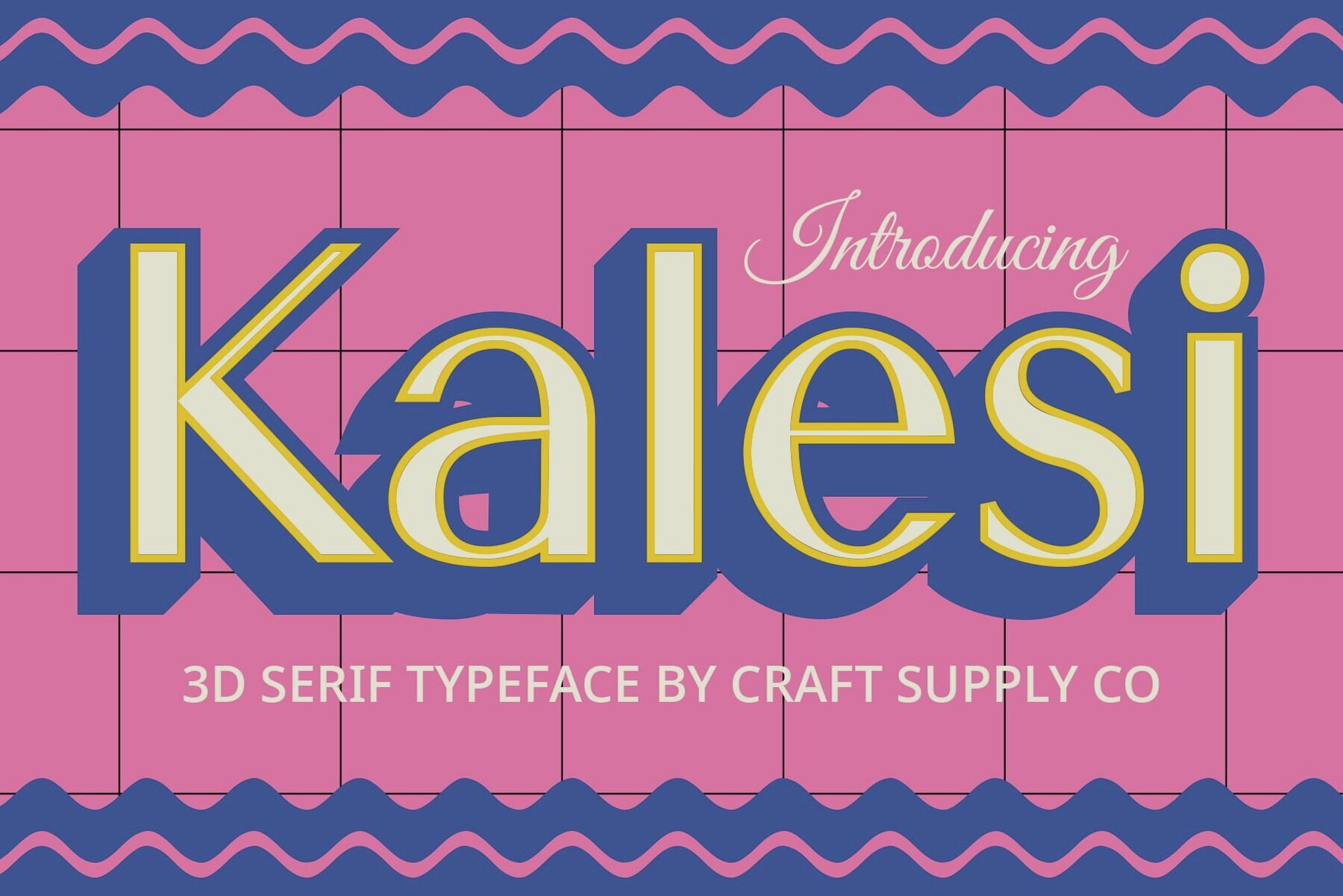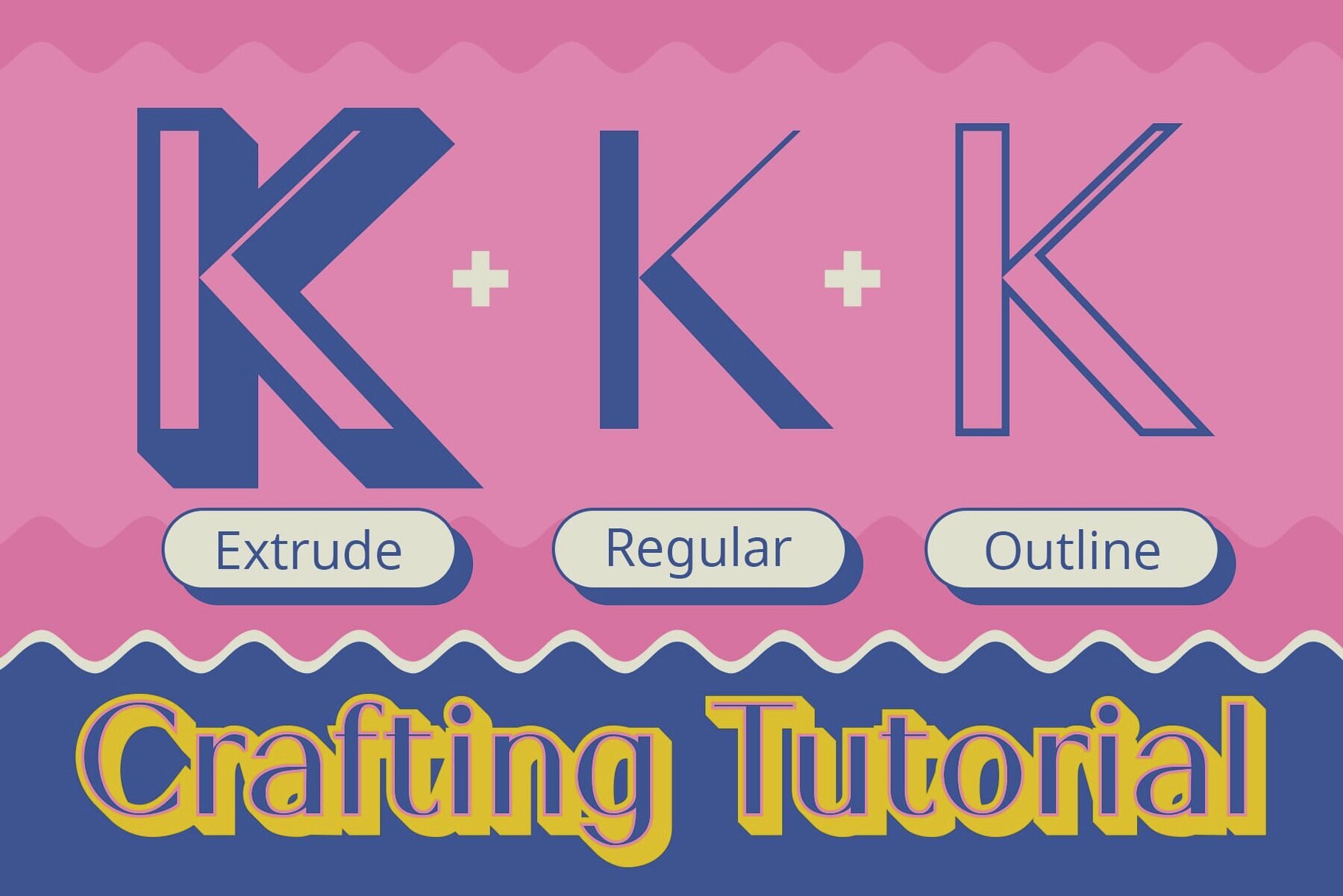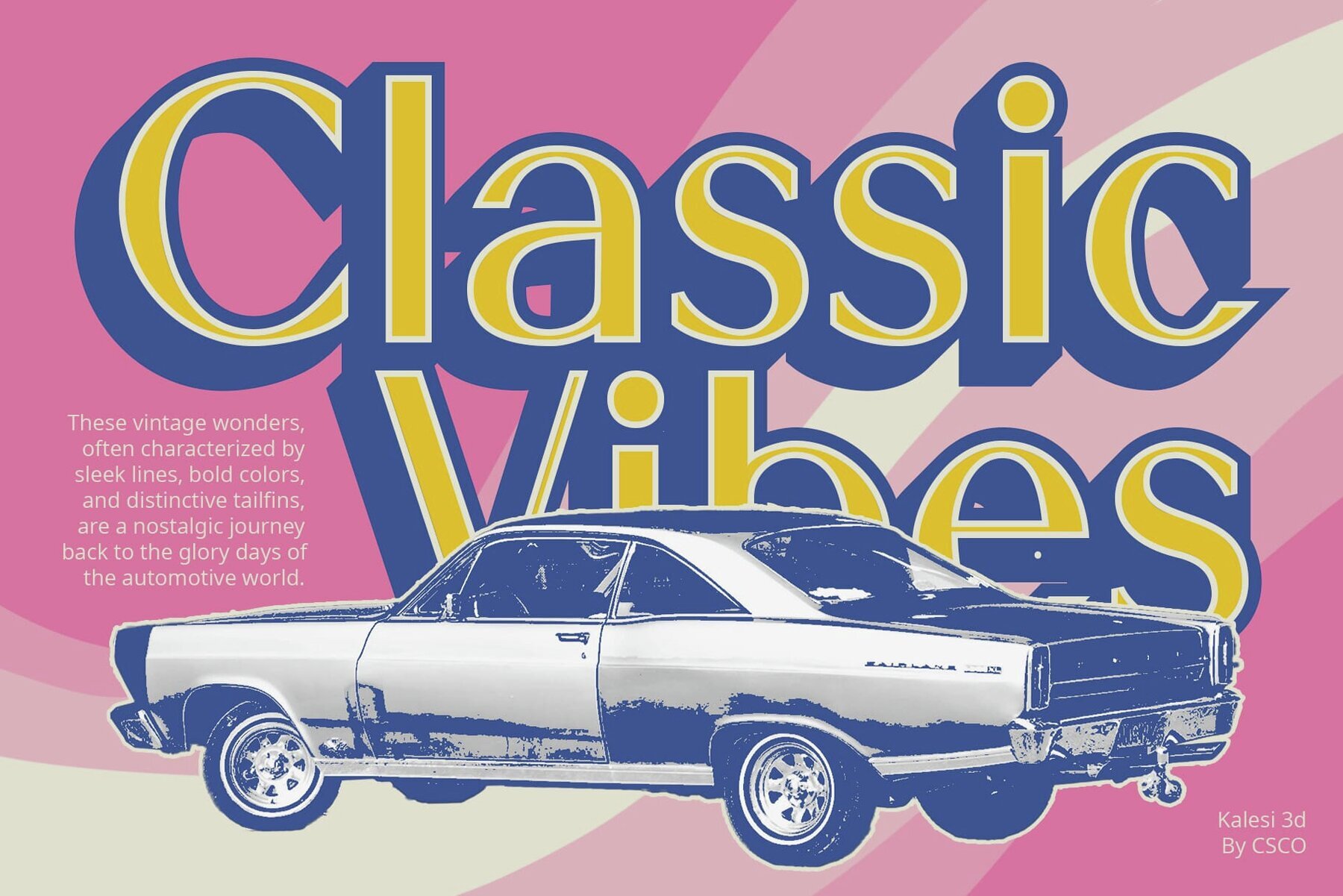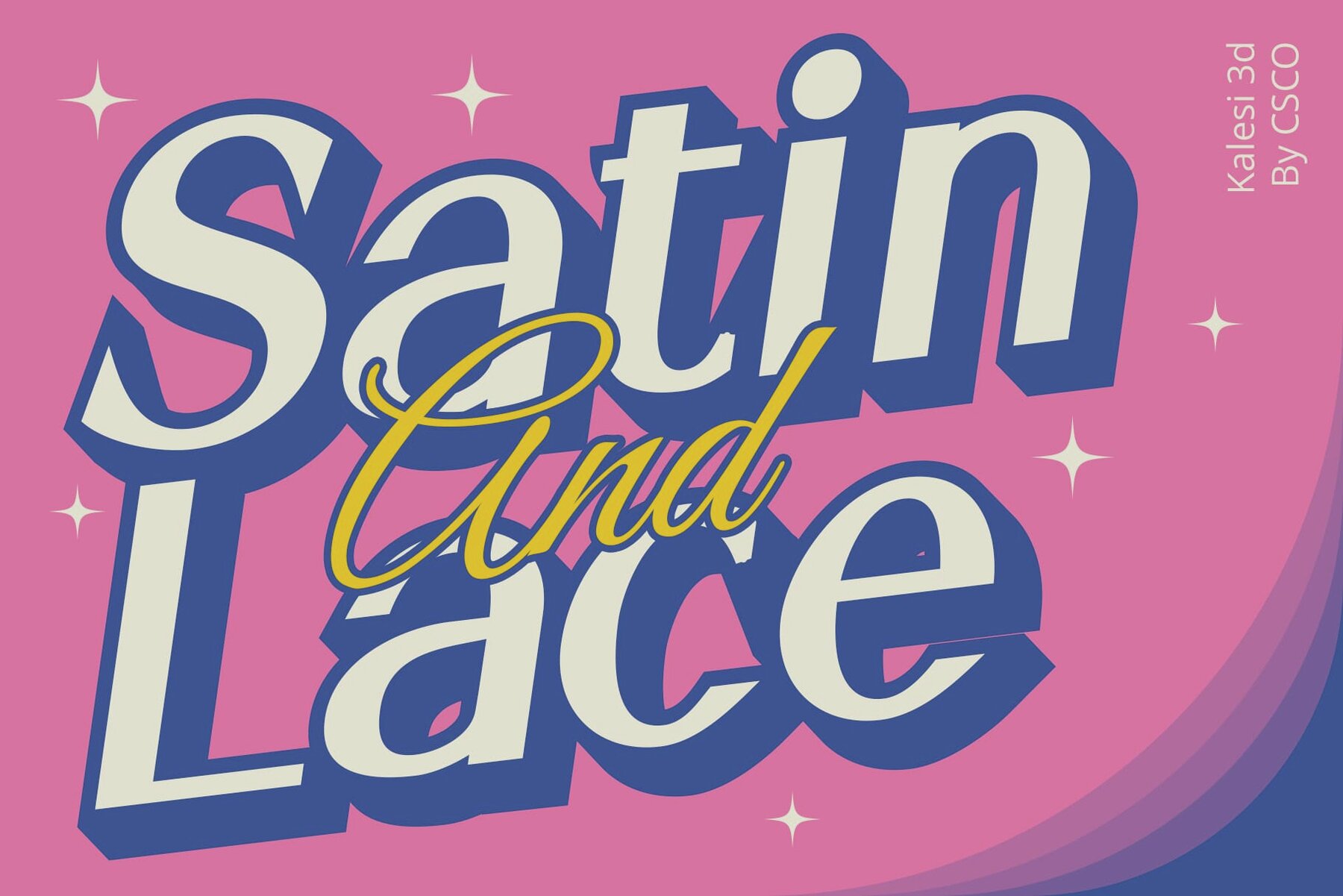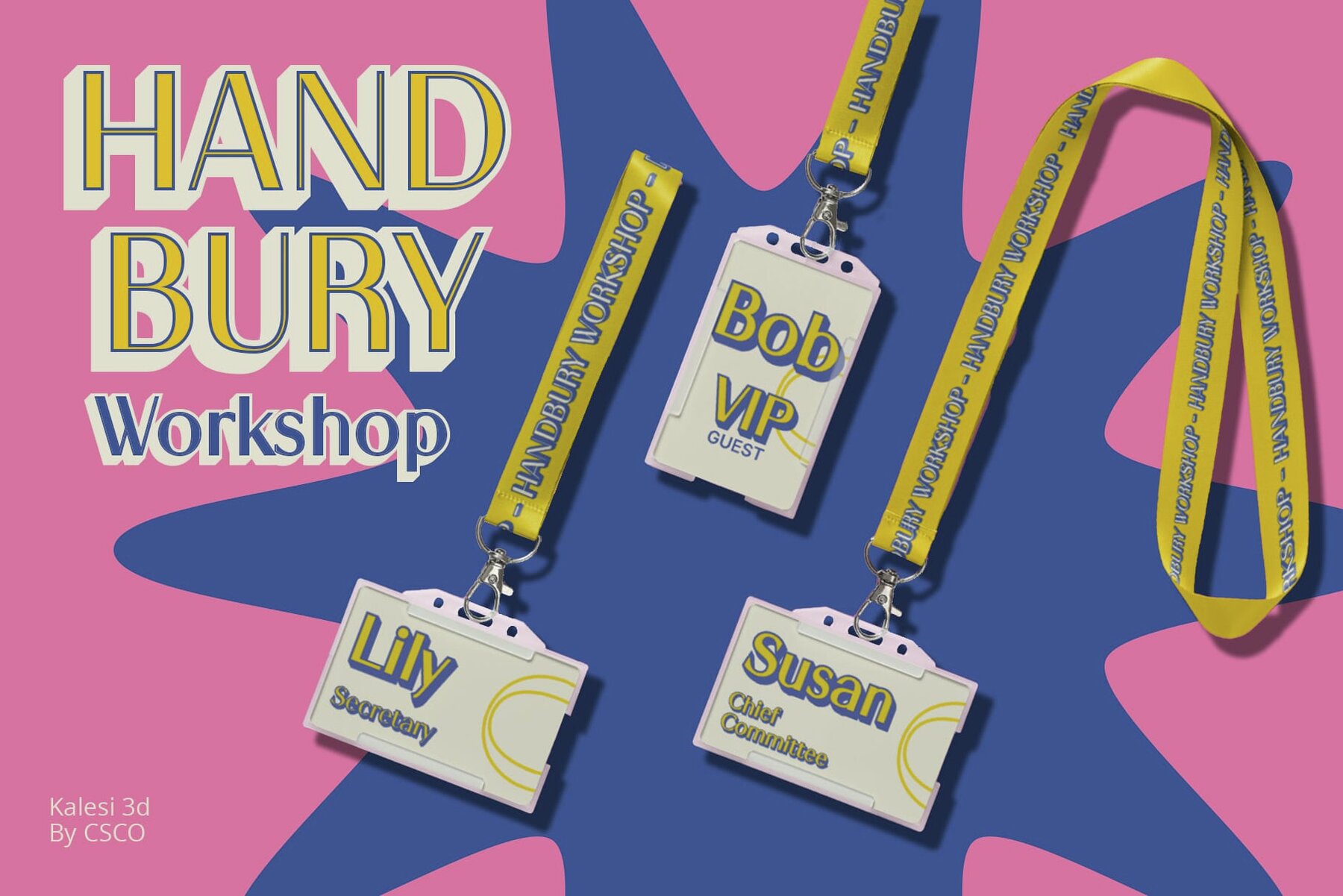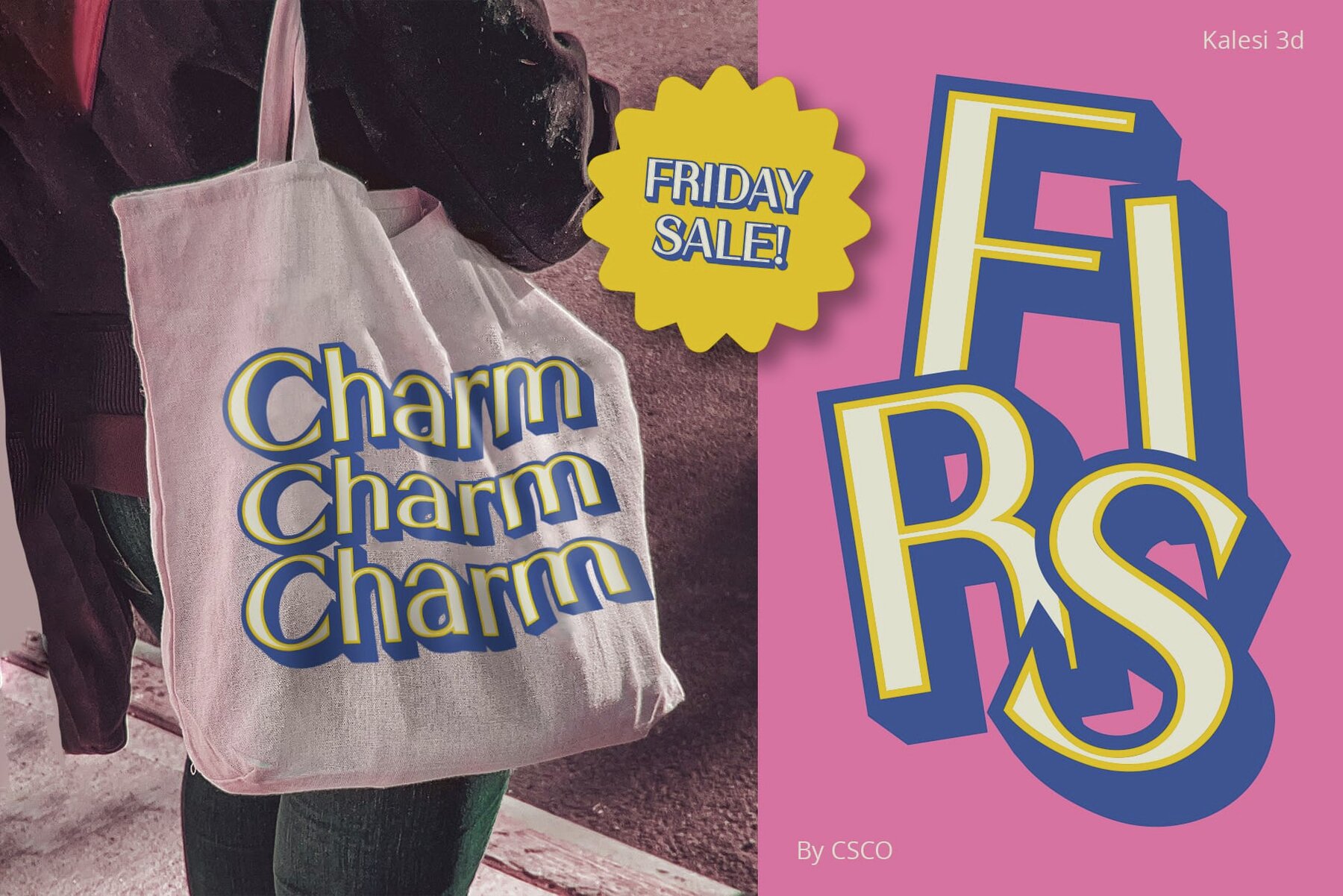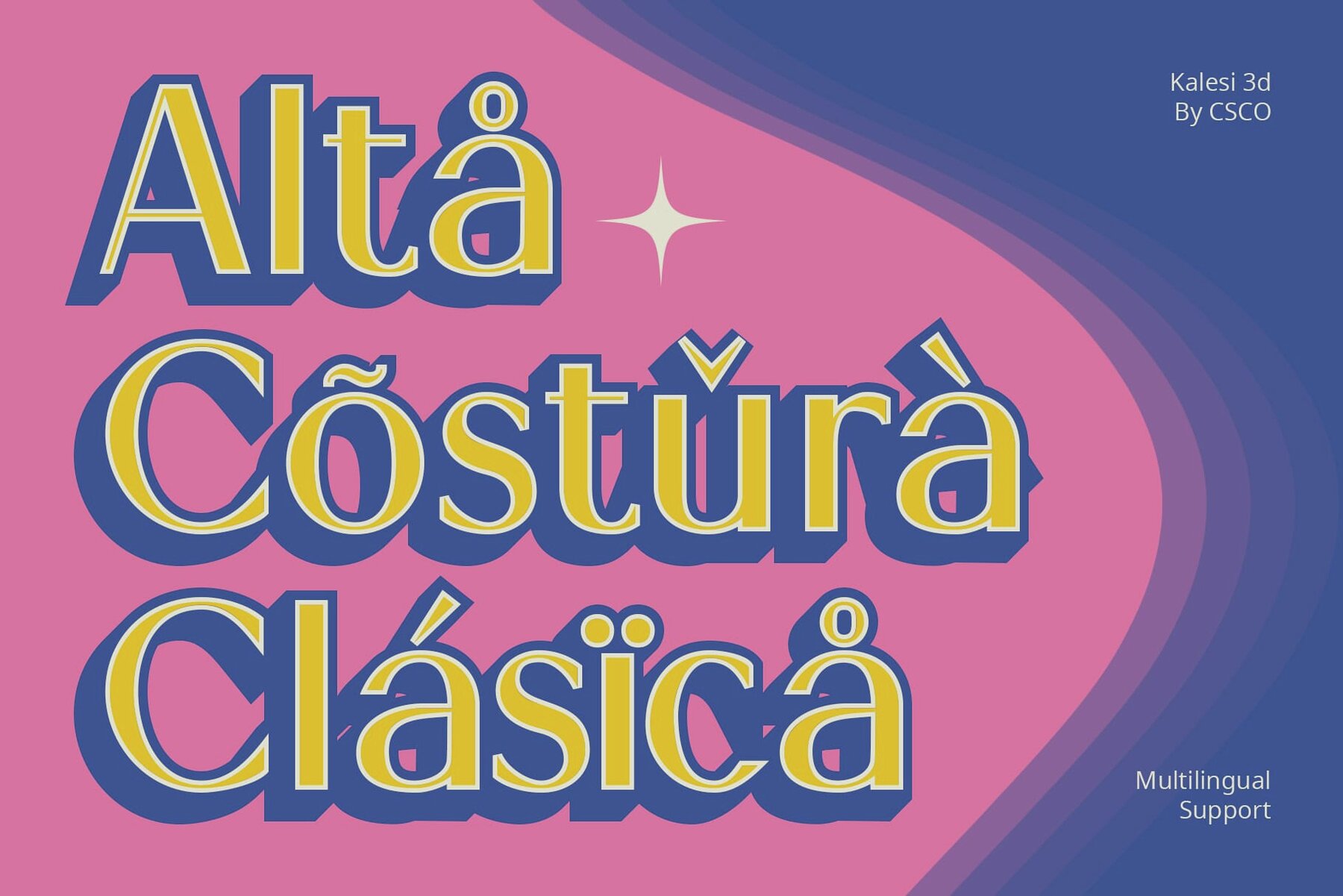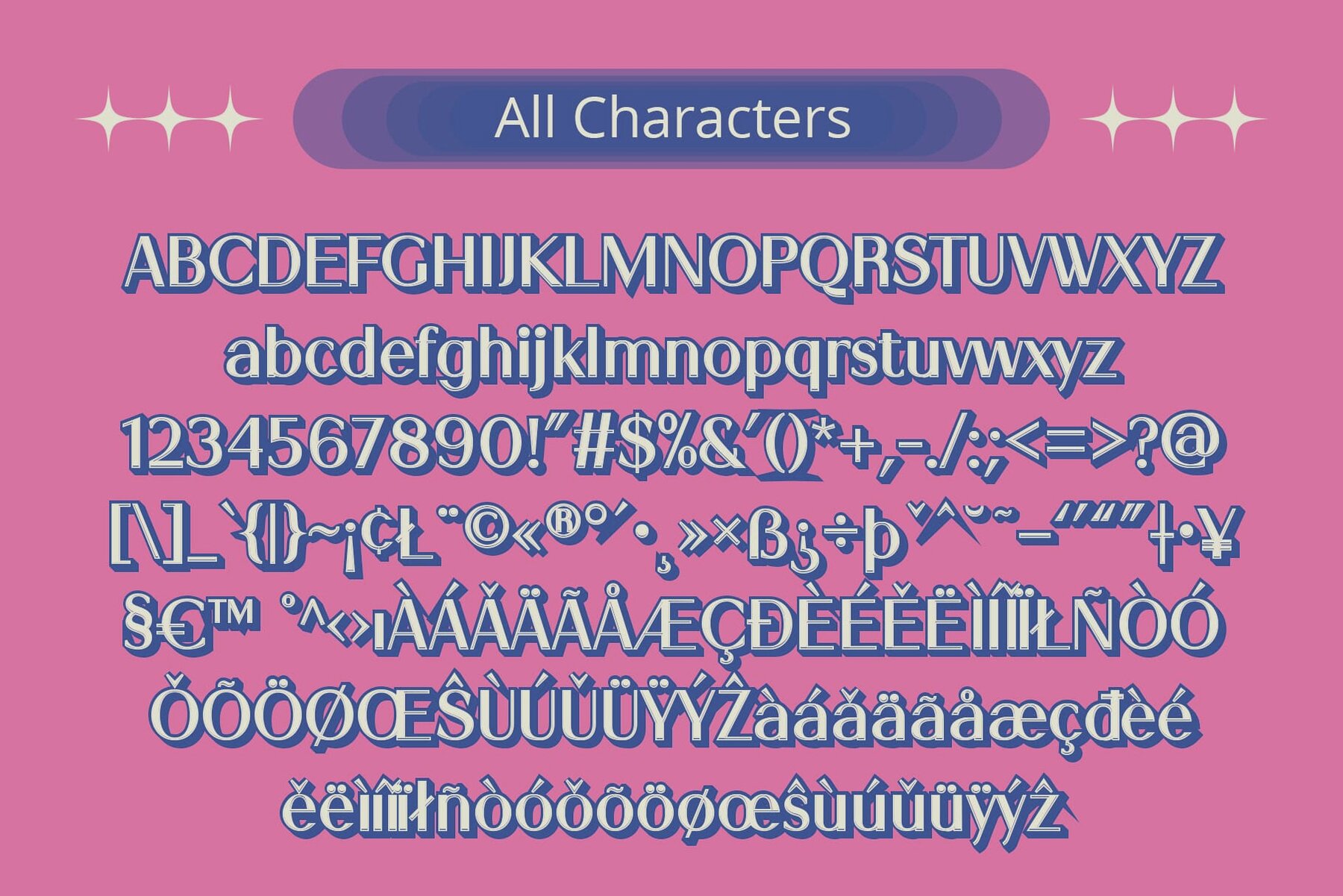
Kalesi 3D Font
Kalesi 3D brings a fresh perspective to display typography with its dynamic sans serif design enhanced by captivating 3D effects. Each character embodies modernity and depth, making it a versatile choice for a variety of display applications. This font features a sleek sans serif structure, elevated through innovative 3D technology. The interplay of light and shadow adds depth and visual intrigue to each character. Designed specifically for display use, Kalesi 3D excels in capturing attention and effectively conveying messages. Its bold presence and three-dimensional style ensure that your designs are eye-catching. Kalesi 3D not only boasts a striking appearance but also offers versatility across various applications. Its modern sans serif style with 3D effects imparts a touch of sophistication, ideal for advertising, branding, and digital media. Redefining display typography, Kalesi 3D combines sleek sans serif design with captivating 3D effects. It is suitable for a wide range of display needs, offering both style and practicality. Experience the charm of Kalesi 3D and enhance your display projects with a touch of modern elegance. You can use this typeface without needing any specialized software. If you have any inquiries or need assistance, please feel free to contact us. We appreciate your support in enhancing your creative projects!Kalesi 3D: Redefining Display Typography
Dynamic Sans Serif Design
Perfect for Display Purposes
Versatile Application
Modern Elegance in Display Typography